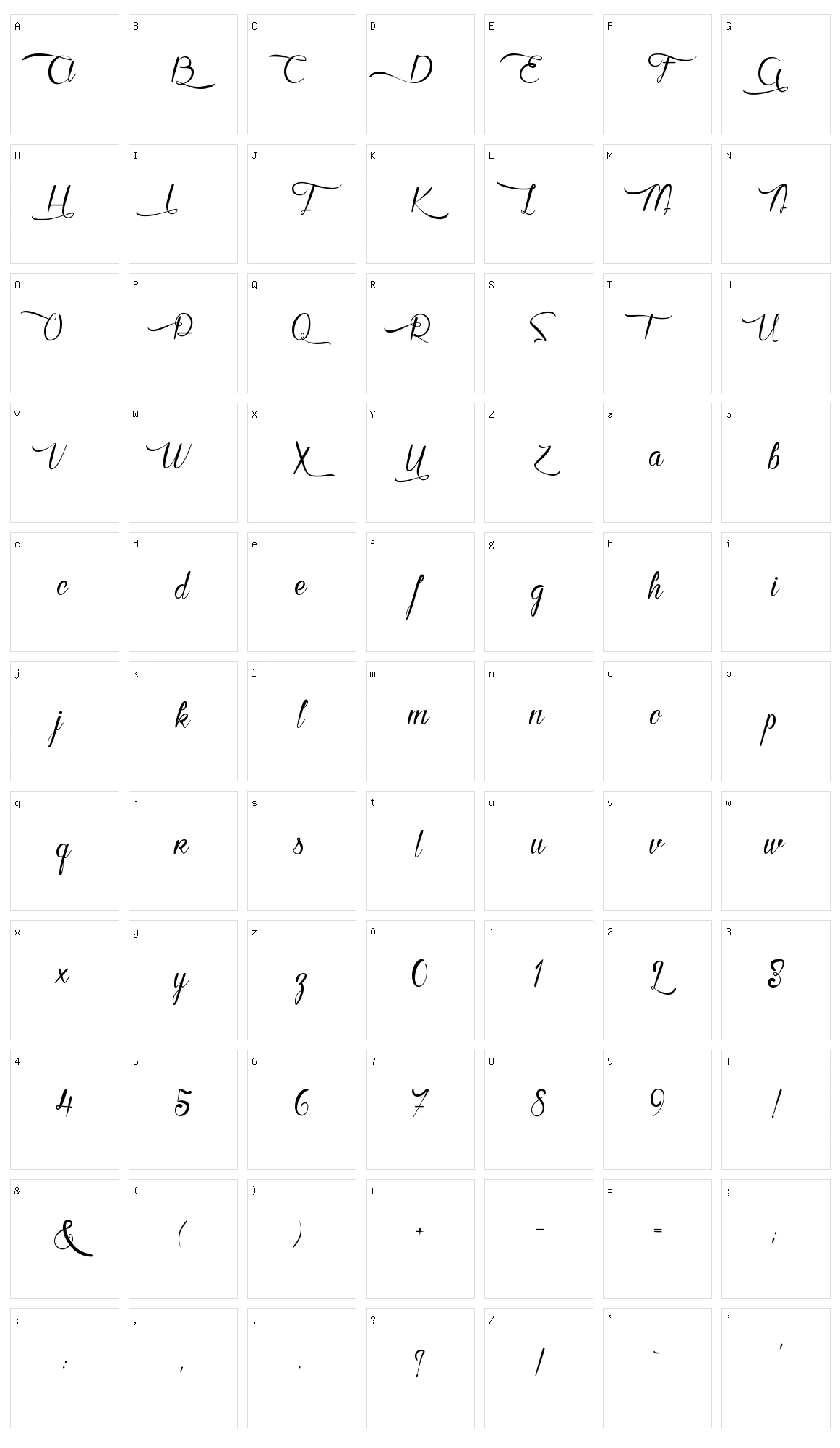
The free font Karine aime les Chocolats is carefully designed by Maelle.K | Thomas Boucherie, showcasing a thoughtful balance of creativity and usability and falls under the Script font style. When you download the ZIP file, it contains only 20.15 KB of font files, making it lightweight and quick to download. Please review the license details below to understand permitted usage and distribution rights. If license information is not available, we recommend using this font for personal projects only or contacting the author directly for commercial usage permissions.
b b b = b_1
f f f = f_1
g g g = g_1
h h h = h_1
j j j = j_1
k k k = k_1
l l l = l_1
y y y = y_1
z z z = z_1